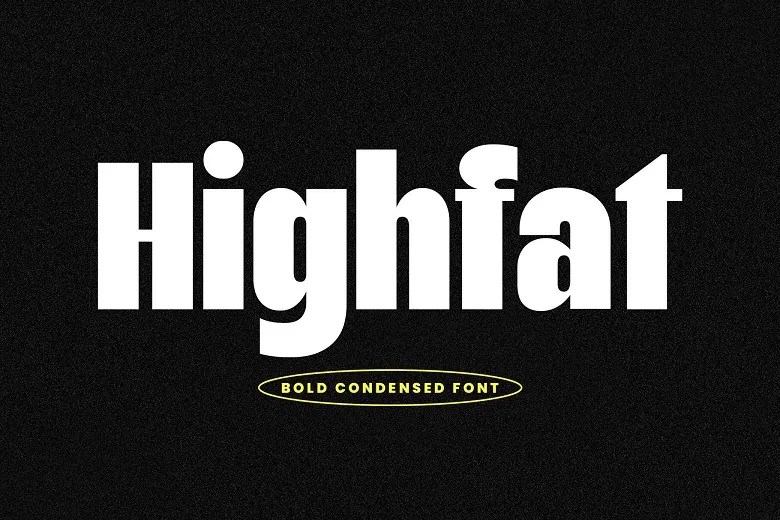
Highfat Font
Highfat is a strikingly bold condensed font, meticulously crafted by blending the influences of classic bold typography with contemporary sans serif styles. Its robust and compact design makes it an excellent choice for display purposes, ensuring that your designs stand out with a dense, impactful presence.
This font comes with stylish variants and ligatures, allowing for creative combinations that result in vibrant and eye-catching designs. Highfat is versatile, making it perfect for creating impressive logos, powerful titles and subtitles, dynamic decals, banners, and even enhancing the visual appeal of websites. Its bold nature ensures that your message is delivered with authority and style.